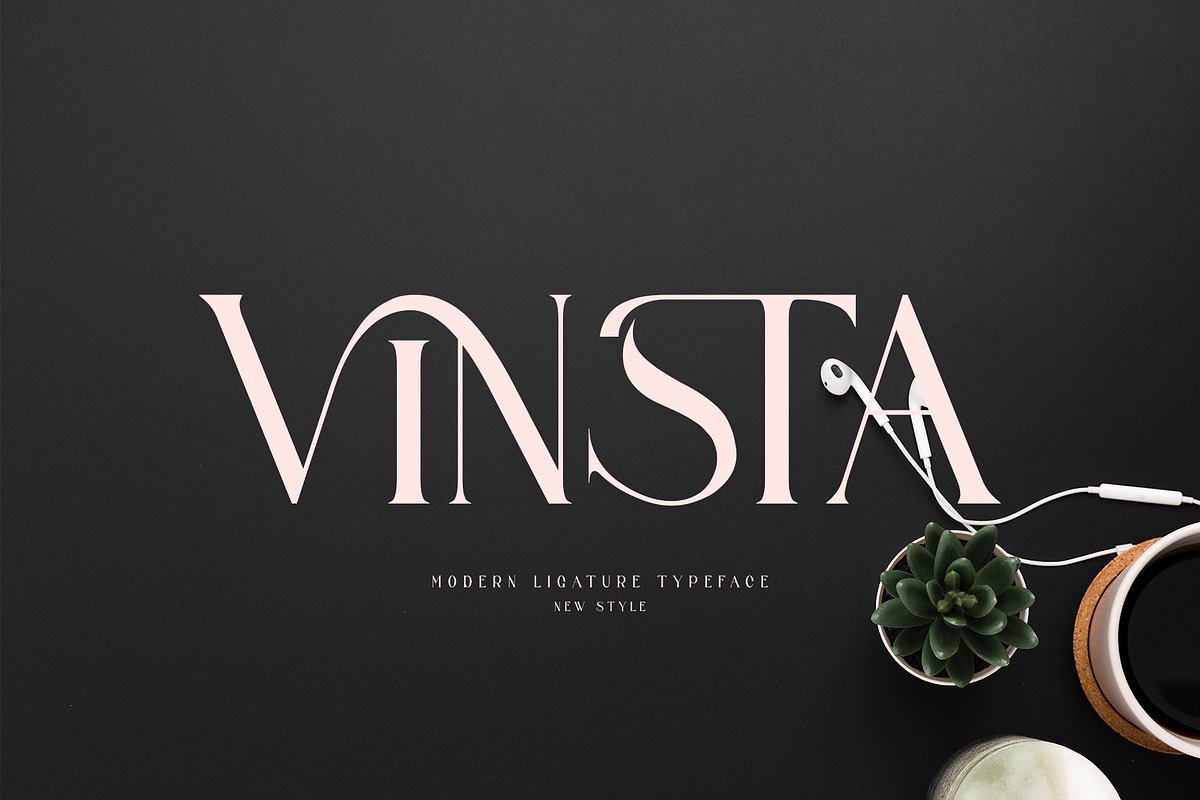
The VINSTA Ligature Serif Typeface Free Download is a sophisticated and elegant font designed to elevate your designs with its stylish ligatures and classic serif structure. With its unique blend of traditional serif features and modern ligatures, this typeface is perfect for high-end branding, editorial design, logos, and more. Whether you're working on a luxury brand, an upscale event, or a creative project, VINSTA adds a refined and polished touch to your work.
VINSTA Ligature Serif Typeface Free Download is ideal for designers seeking to create timeless, elegant typography with a modern twist. Perfect for editorial designs, invitations, or professional branding, this font will give your projects a sophisticated and unique appearance. Download it today and add a touch of luxury to your creative work with VINSTA!